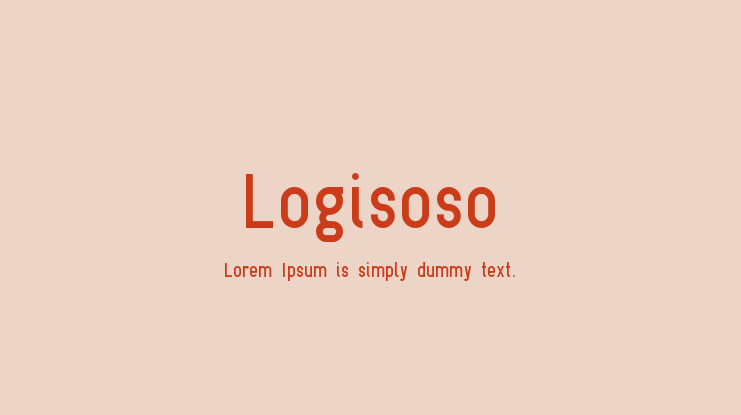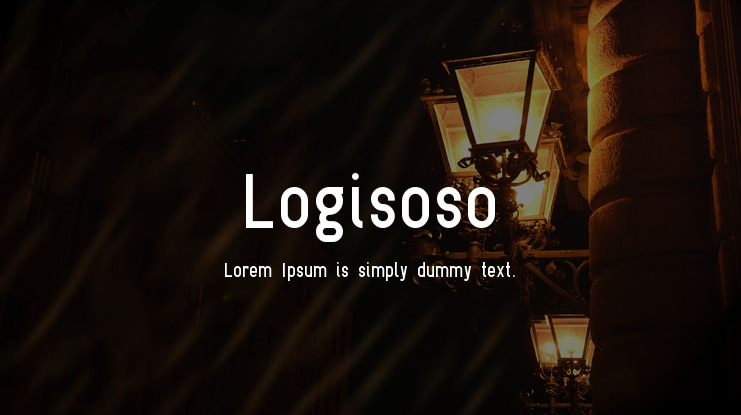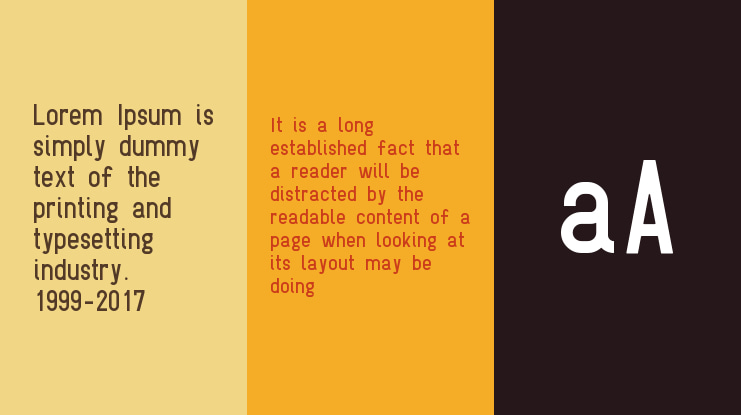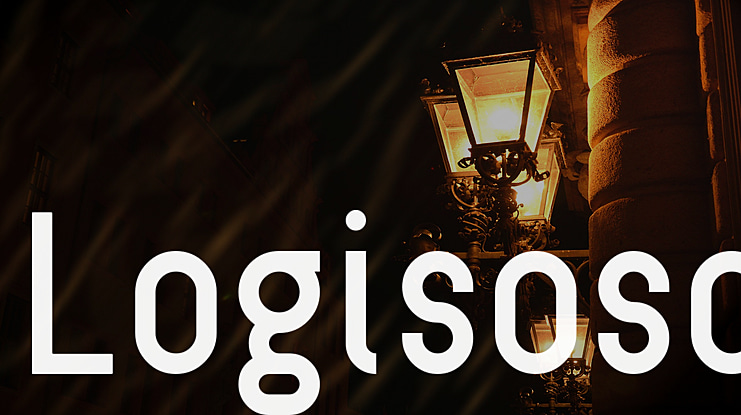
Logisoso Font
Mathieu Gabiot
Logisoso is a reinterpretation of the Delhaize logo lettering. Drawn during a signage work for the Zellik logistic center. It was used to identify different buildings. The font was later completed with Inkscape and generated with FontForge. For more detailed information: http://www.mathieu-g.be
Capital letters are currently rounded, not the lowecases letters.